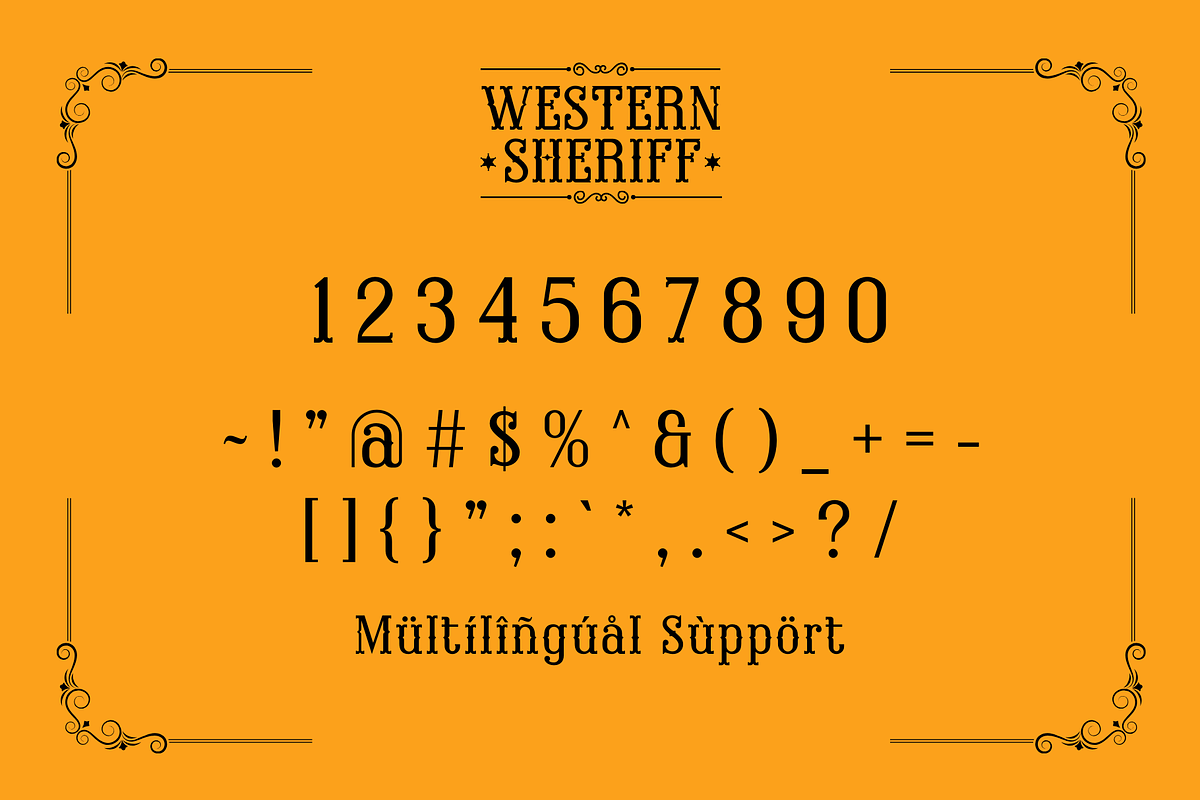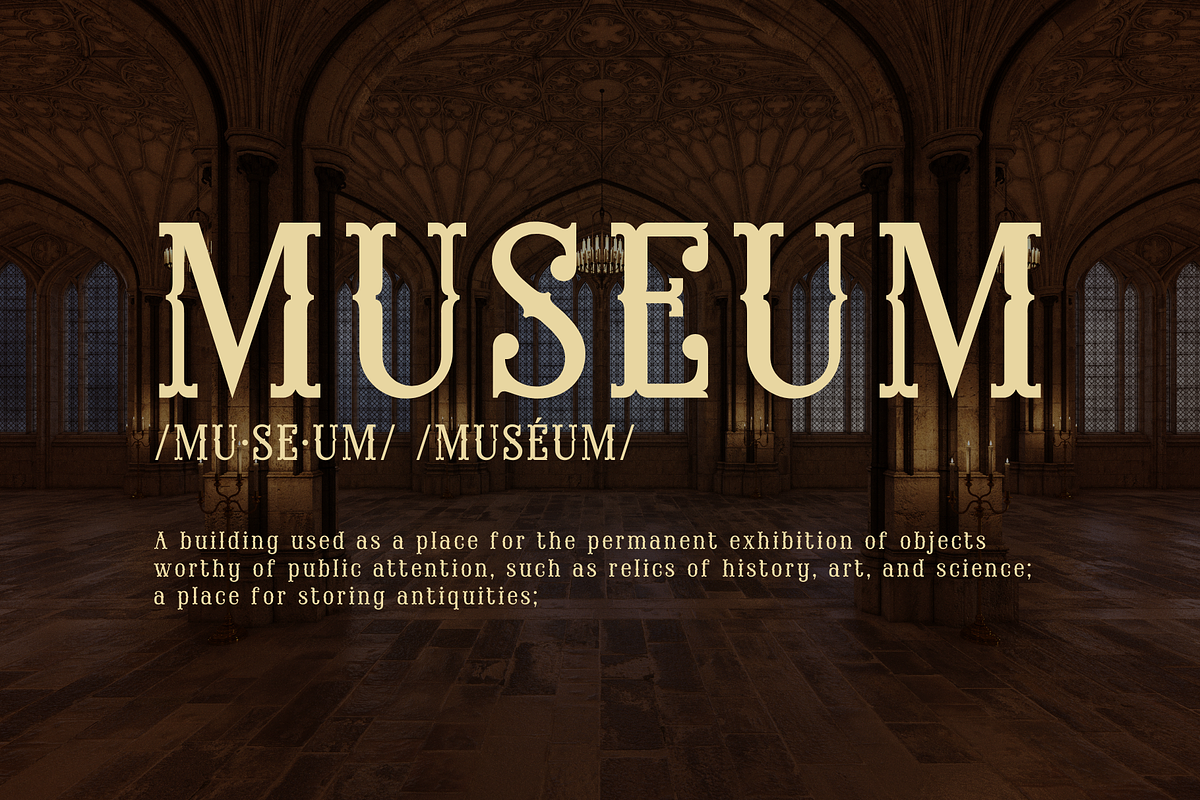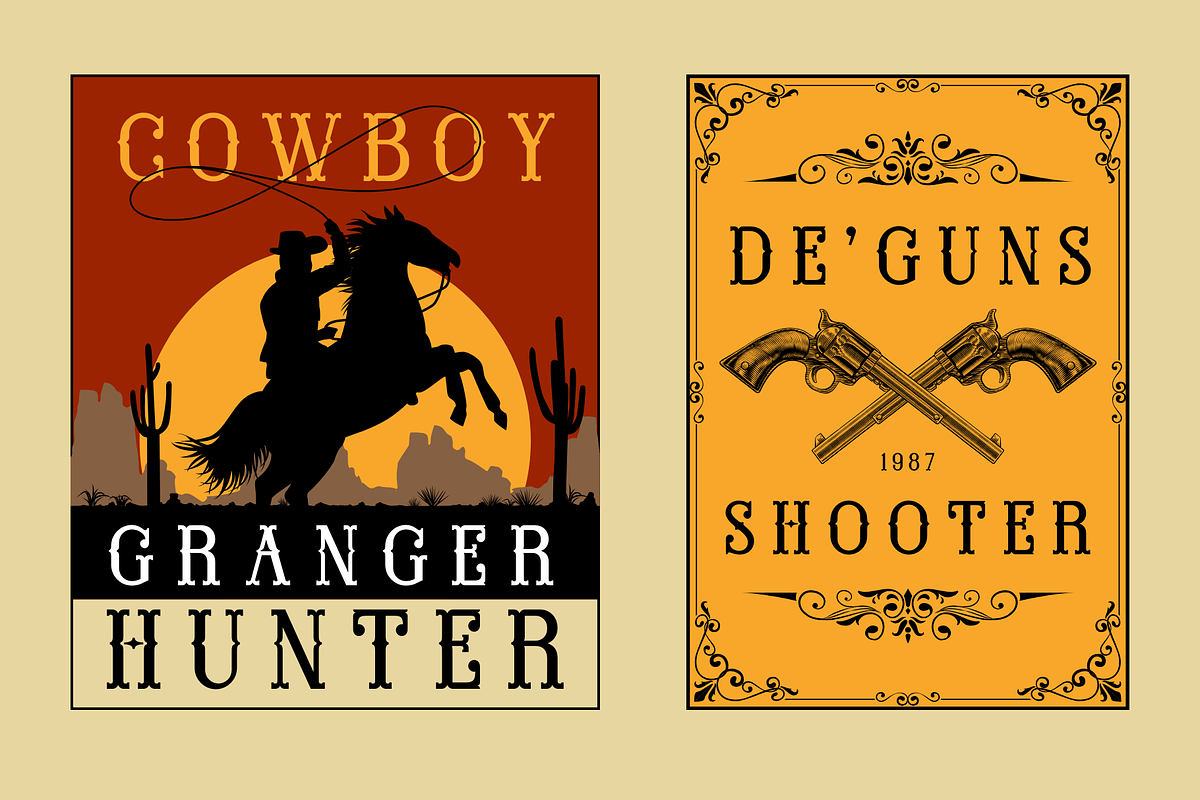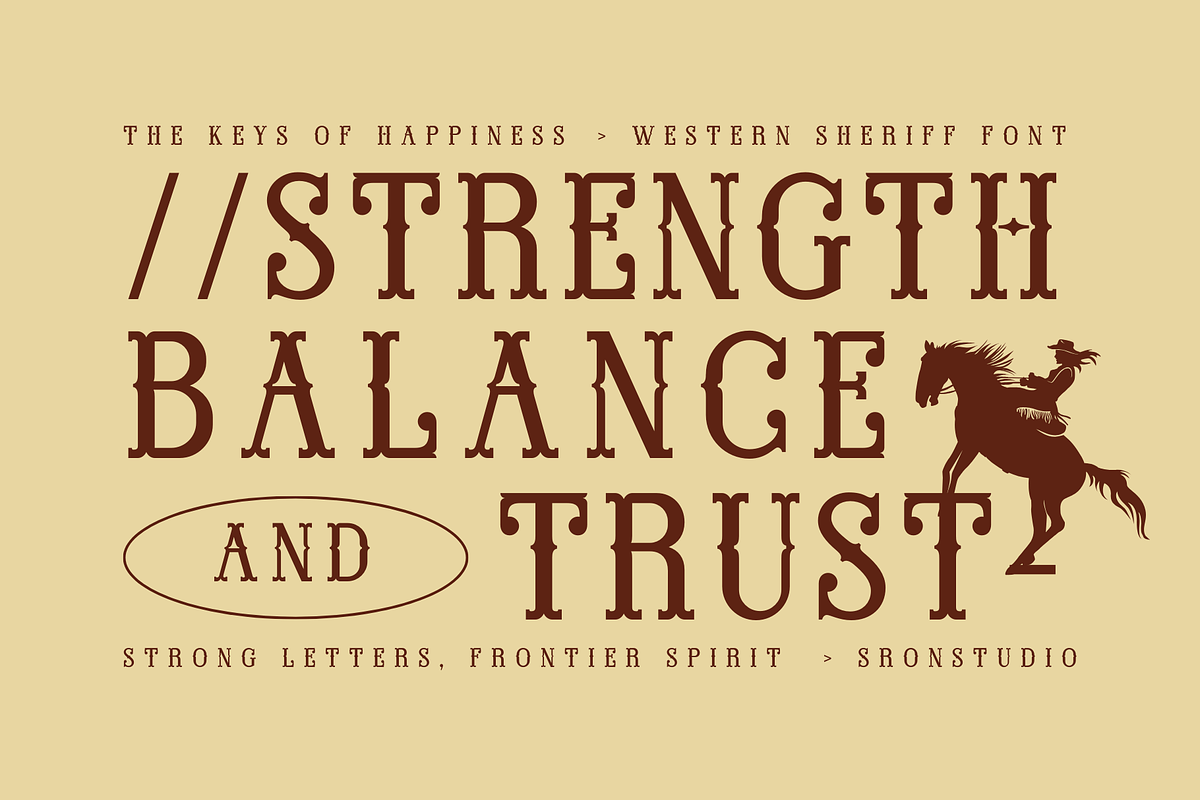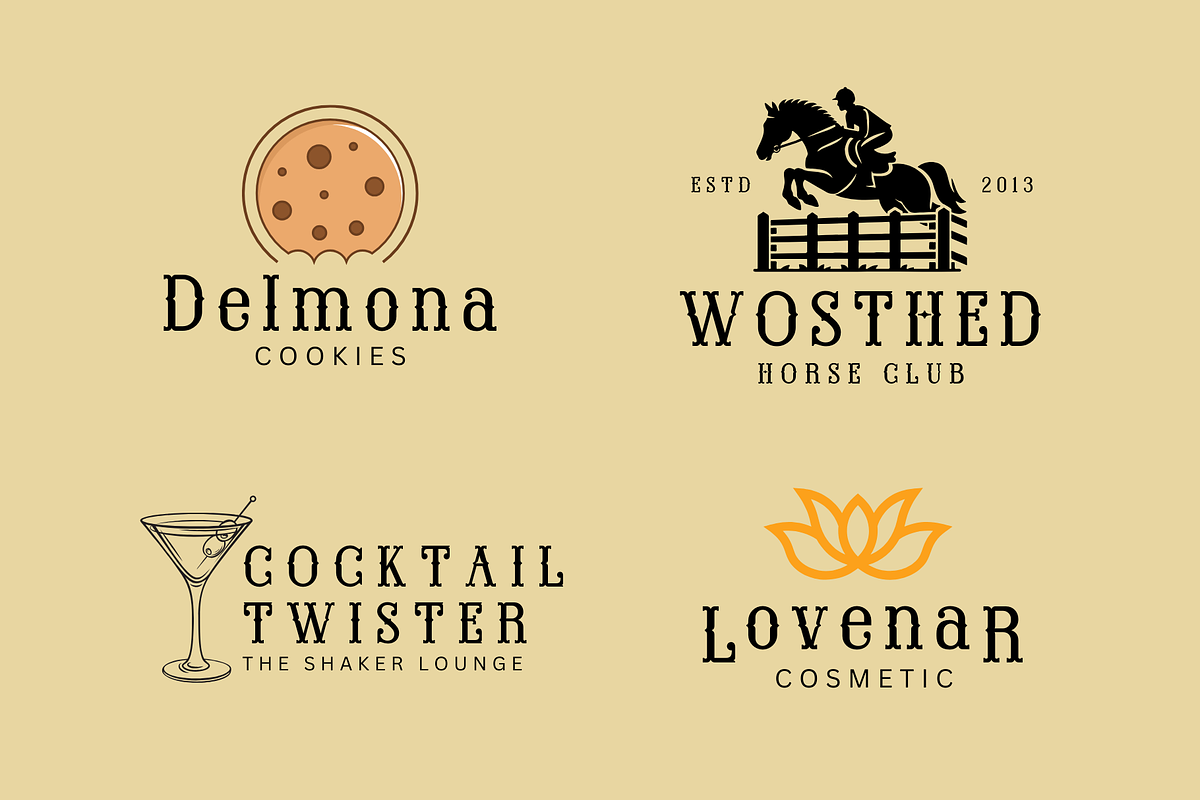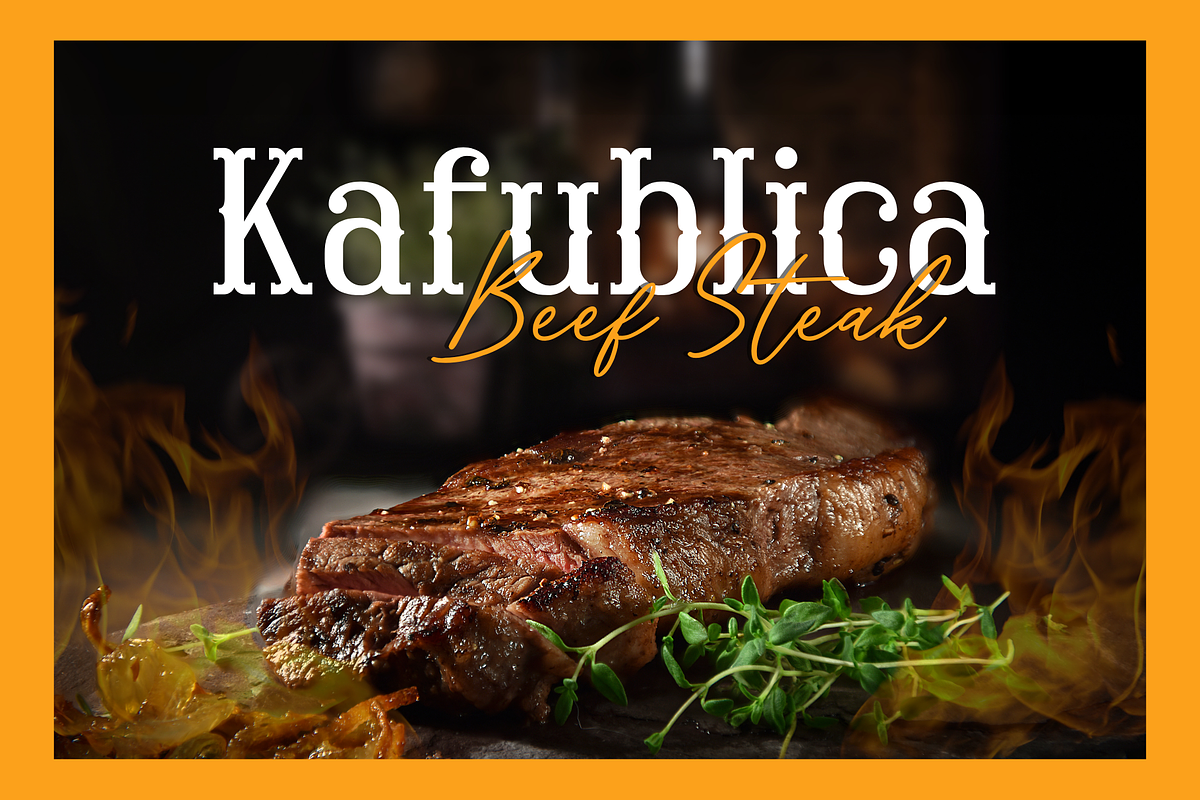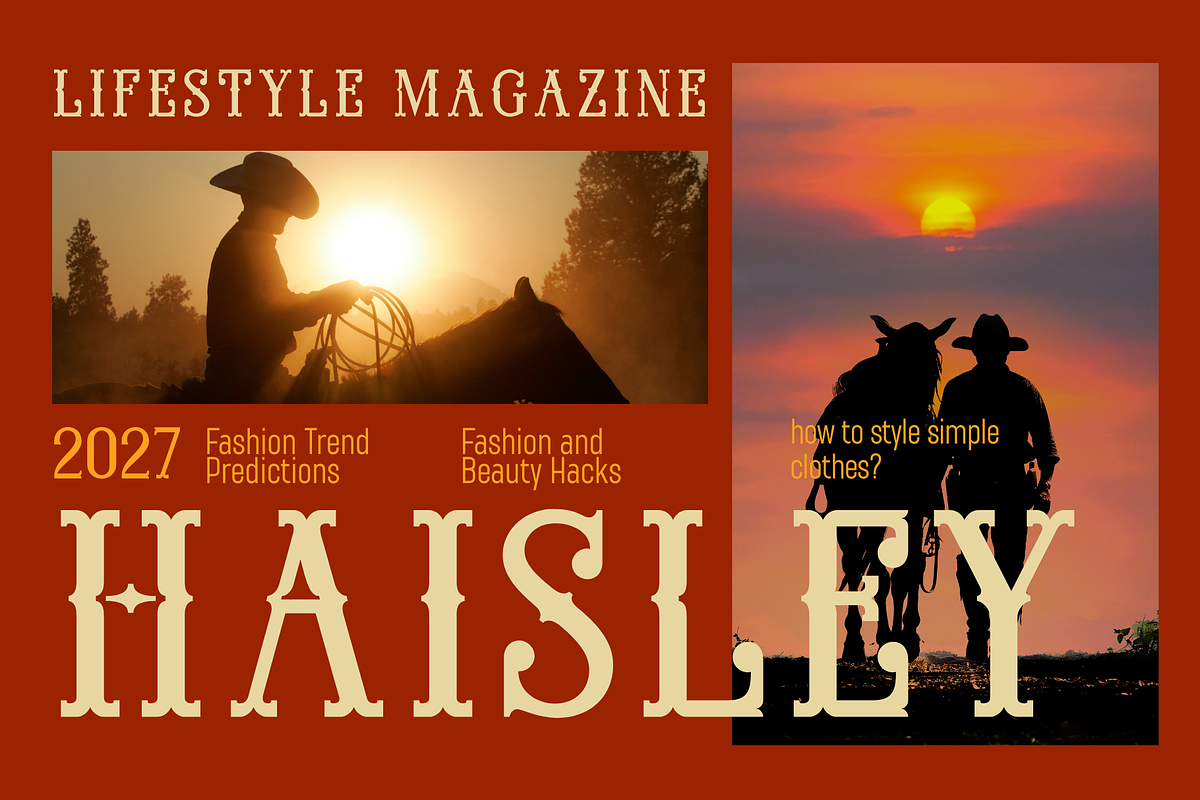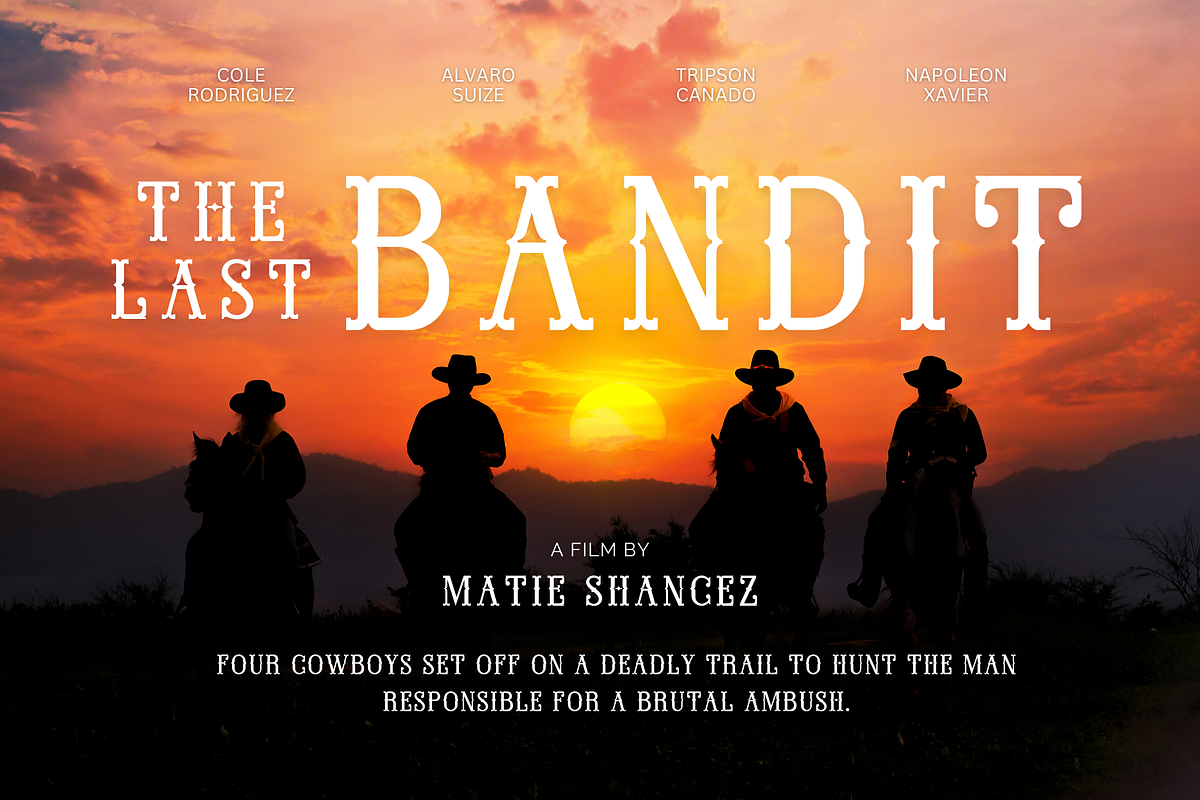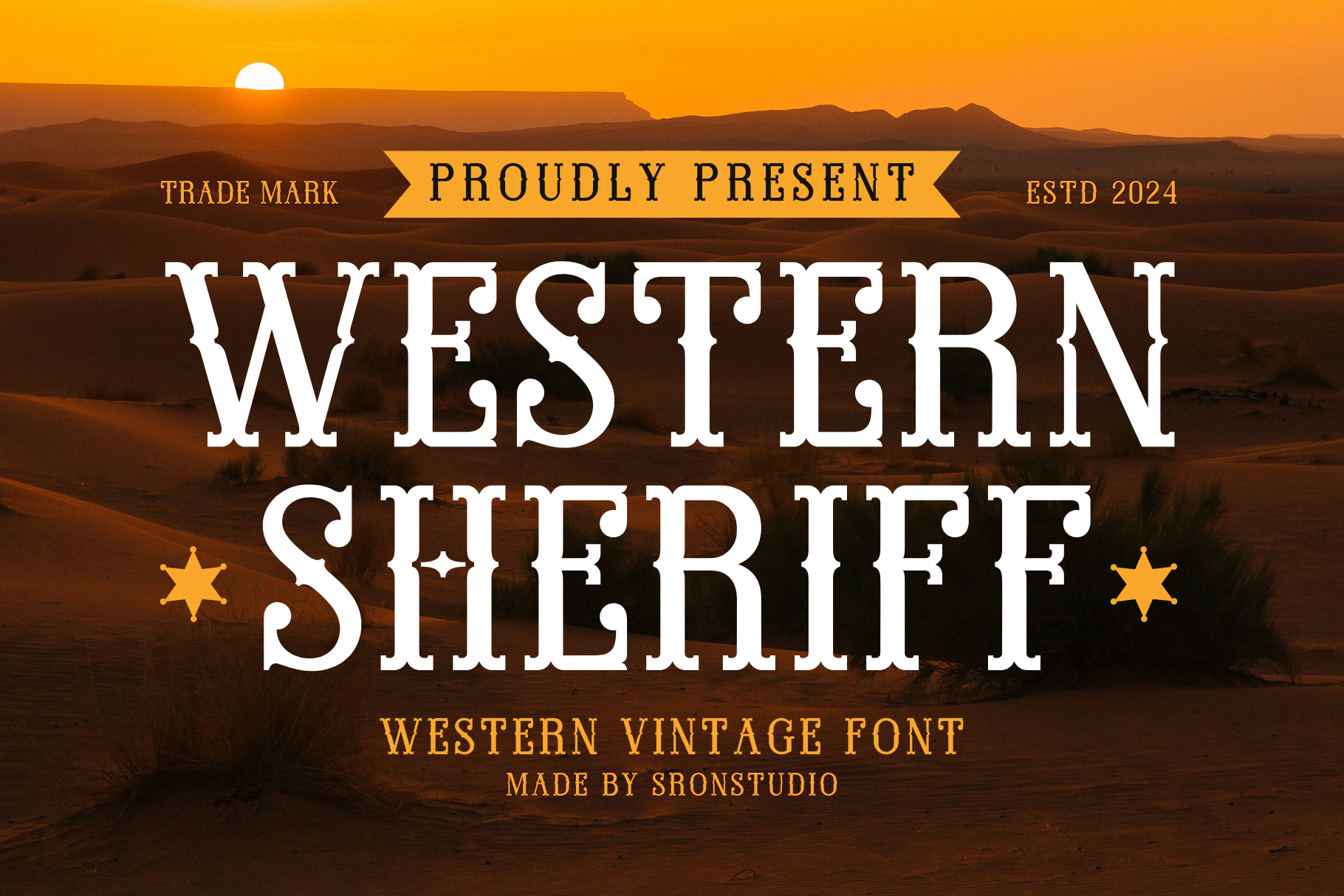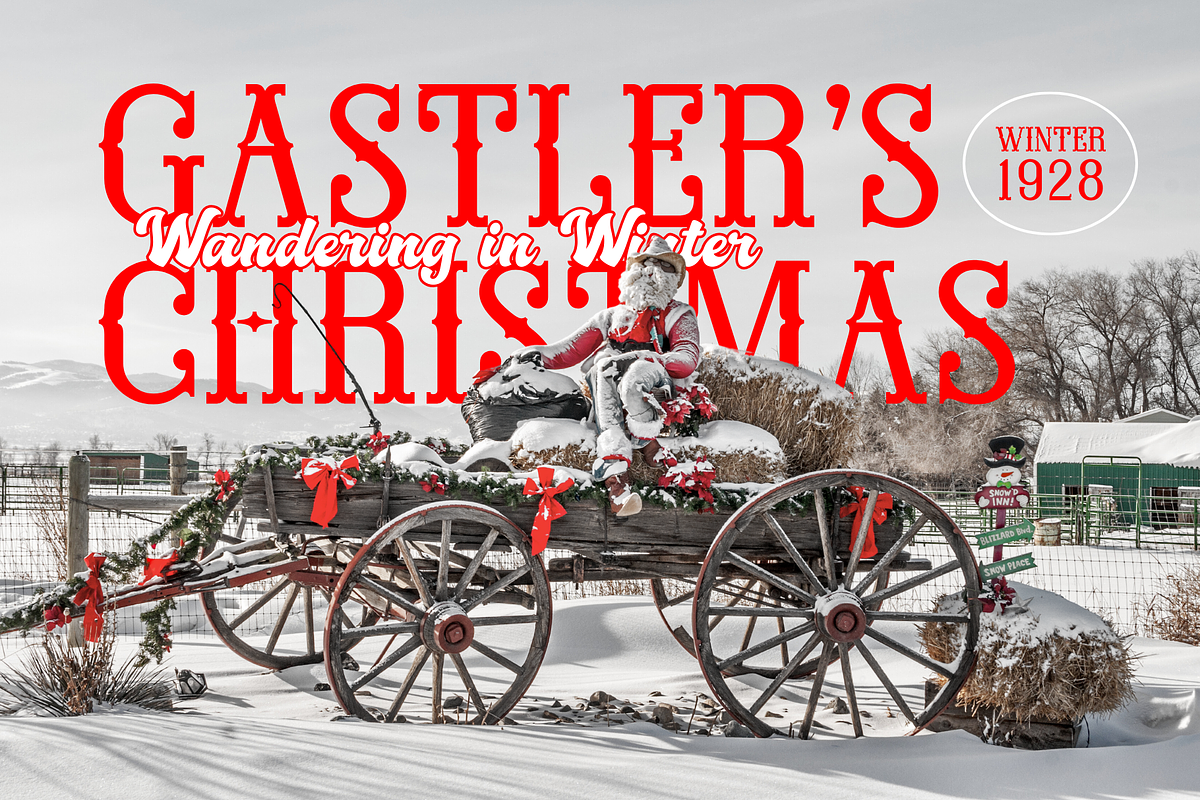
Western Sheriff - Cowboy Font
Western Sheriff is a bold and rugged western-style font that captures the spirit of the Old West. With its vintage charm and strong character, this font is perfect for posters, branding, logos, and any design that needs a touch of cowboy flair. Bring the wild west to life with Western Sheriff!